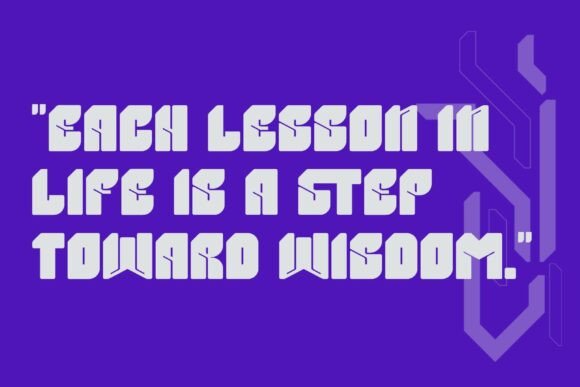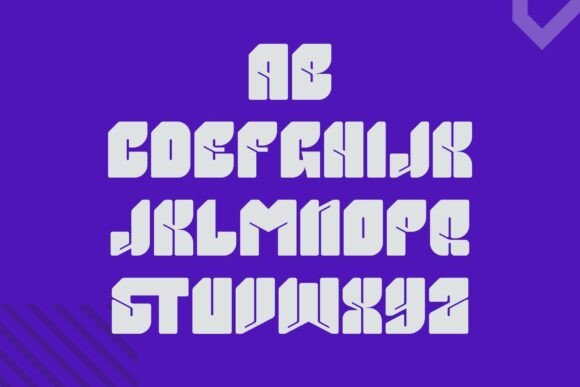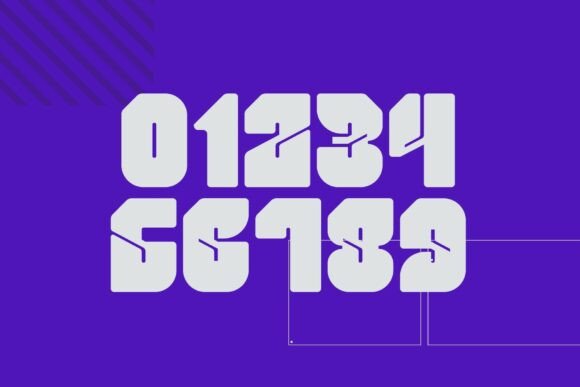
Introduction to Pulse Font
Remember that moment when you stumbled upon the perfect font for your project? The one that elevated your design from ordinary to extraordinary? For many designers, that moment is what drives them to push the boundaries of creative expression. And that’s exactly what the Pulse Font offers – a bold, high-quality design resource that injects futuristic energy into any project.
Perfect for tech posters, music branding, and gaming covers, the Pulse Font is a must-have for anyone looking to add a touch of experimental sci-fi vibes to their work. With its cybernetic curves and over 100 glyphs, this font is ready to take your creative project to the next level. Whether you’re working on a high-impact poster or a bold statement piece, the Pulse Font is the perfect design companion to help you achieve your vision.
Pulse Font
- High-quality design resource featuring a unique and creative font style.
- Perfect for use in various creative projects, including digital art, graphic design, and typography-based designs.
Honest Review: Pulse Font
I recently had the chance to work with the Pulse Font, and I must say it’s been a game-changer for my design projects. As a designer, I’m always on the lookout for high-quality fonts that can elevate my work, and the Pulse Font delivers.
One of the standout features of this font is its sleek and modern design. It’s perfect for creative projects that require a bold and eye-catching aesthetic. The font is also available for free download, which is a major plus in my book.
- High-quality design that’s perfect for modern projects
- Compatible with a variety of creative projects, from logos to graphics
While the Pulse Font is an excellent addition to any designer’s toolkit, there are a few limitations to be aware of:
- ⚠️ Limited font styles and variations available
- ⚠️ Not ideal for projects that require a more traditional or serif font
Overall, I’m thoroughly impressed with the Pulse Font. Its modern design, free availability, and compatibility with a variety of projects make it a must-have for any designer. With a few tweaks to expand its font styles and variations, it could be an even more versatile design resource.
Pulse Font
The Pulse Font is a high-quality, free download design resource perfect for creative projects. It features a transparent background, making it versatile for various designs.
The Pulse Font is suitable for various design projects, including:
- Branding and logos
- Marketing materials, such as brochures and flyers
- Digital designs, such as social media graphics and website headers